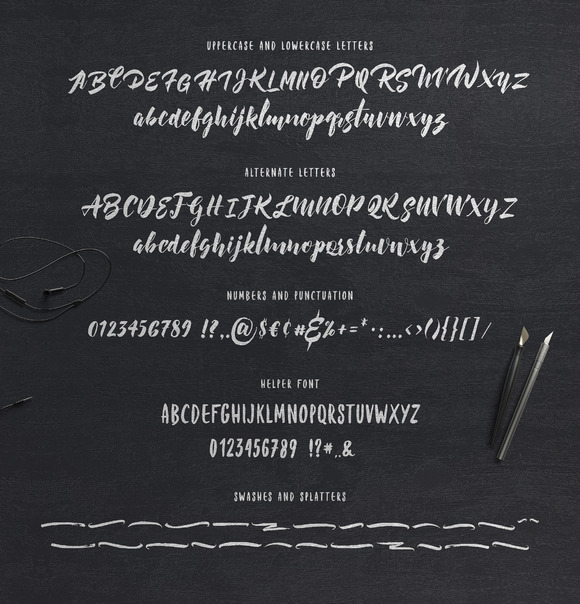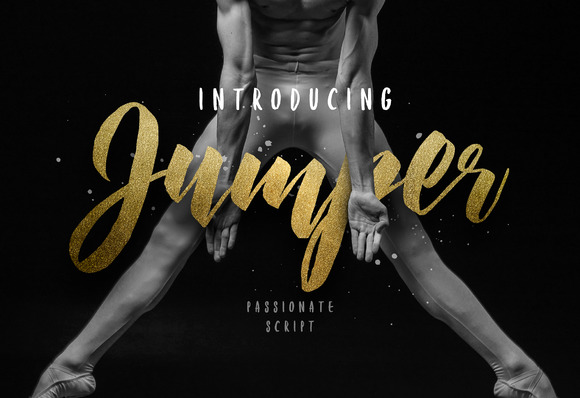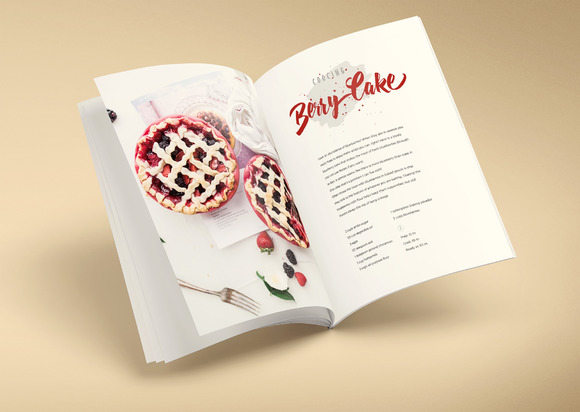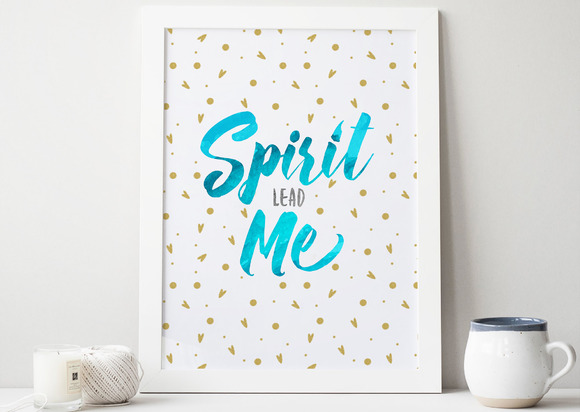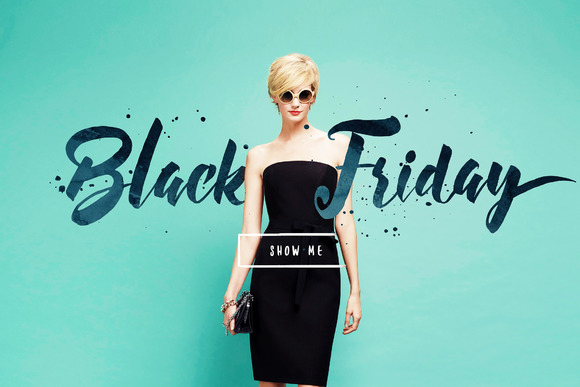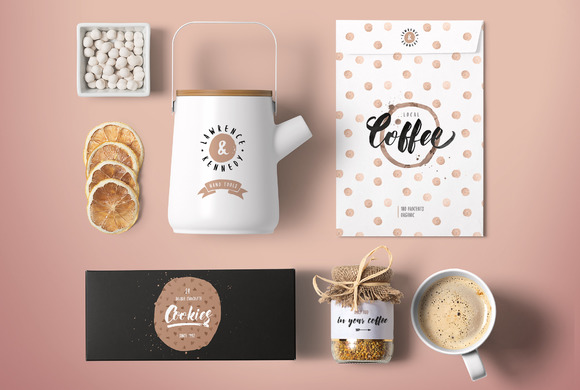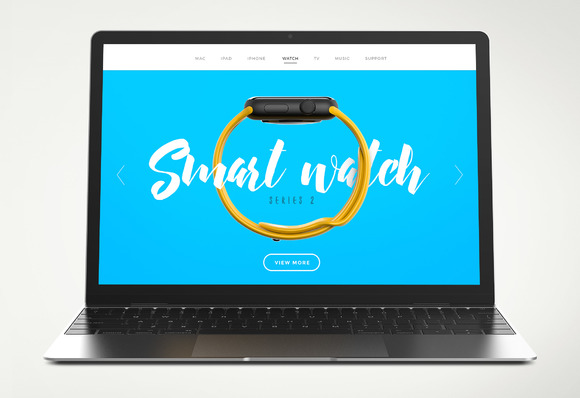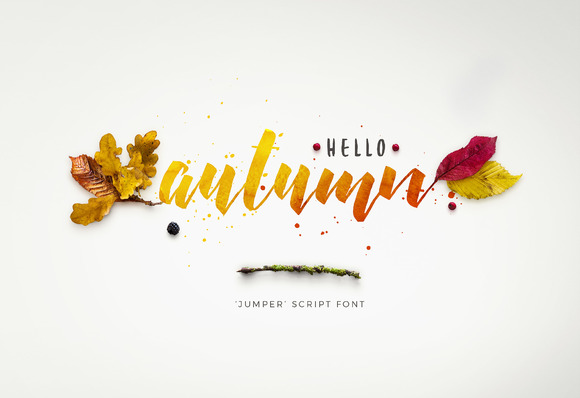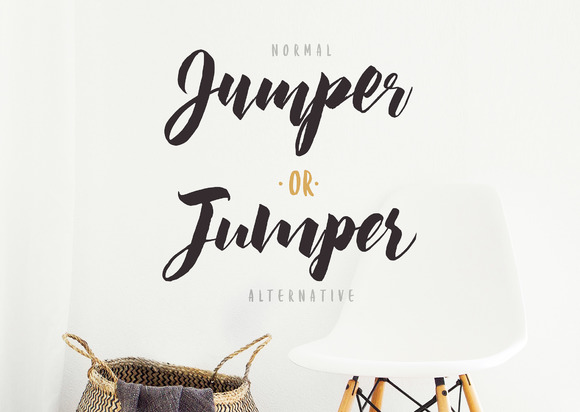
HomeScript FontsJumper Font Script Fonts Jumper Font FacebookXPinterestWhatsApp Jumper Font Poster 2 Jumper Font Poster 3 Jumper Font Poster 4 Jumper Font Poster 5 Jumper Font Poster 6 Jumper Font Poster 7 Jumper Font Poster 8 Jumper Font Poster 9 Jumper Font Poster 10 About Jumper Font Jumper is a hand-lettered type with a brush style. DOWNLOAD ON CREATIVE FABRICAThis font is sold and delivered by Creative Fabrica. Font Canyon may earn a commission if you buy through this link. People also explored Band Wagon Billion Font Herlitta Font Anjelyna Font Smatti Cooves Font Sunday Font Hilltams Font Slam Dunk Font Brillian Font 330 0 TagsJumper Font Previous articleKelium FontNext articleGeneva Font LEAVE A REPLY Cancel reply Comment: Please enter your comment! Name:* Please enter your name here Email:* You have entered an incorrect email address! Please enter your email address here Website: Save my name, email, and website in this browser for the next time I comment. Personal Use Free Osaka Personal Use Free Read more about this font Mold Papa Personal Use Free Read more about this font Ontel Personal Use Free Read more about this font Masker Area Personal Use Free Read more about this font BLOG Top 10 Handwritten Fonts That Elevate Your Designs Top 10 Handwritten Fonts That Will Elevate Your Designs Handwritten fonts bring a warm, personal touch to every creative project. Whether you're designing logos, invitations,... Elegant Wedding Invitation Fonts – Handwritten & Script Fonts Best Fonts for T-Shirt Design – Top 2025 Picks Top 7 Google Fonts Alternatives for Faster and Privacy-Friendly Web Design (2025)